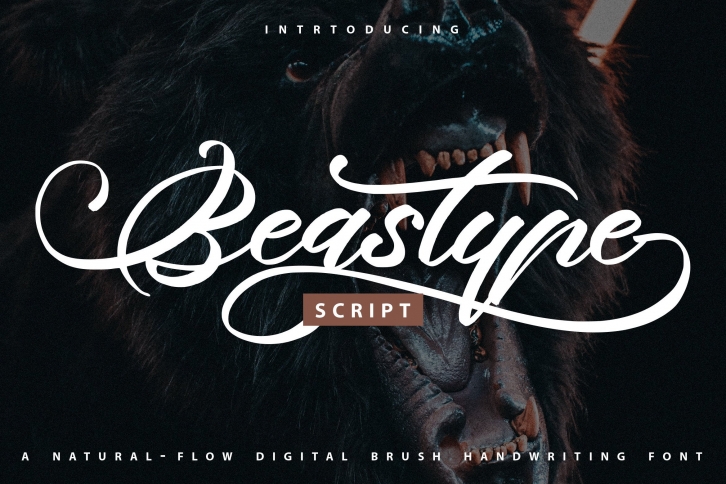
Beastype is a cool and modern brush script font. It will add a luxury spark to any design project that you wish to create! This font is PUA encoded which means you can access all of the amazing glyphs and ligatures with ease!